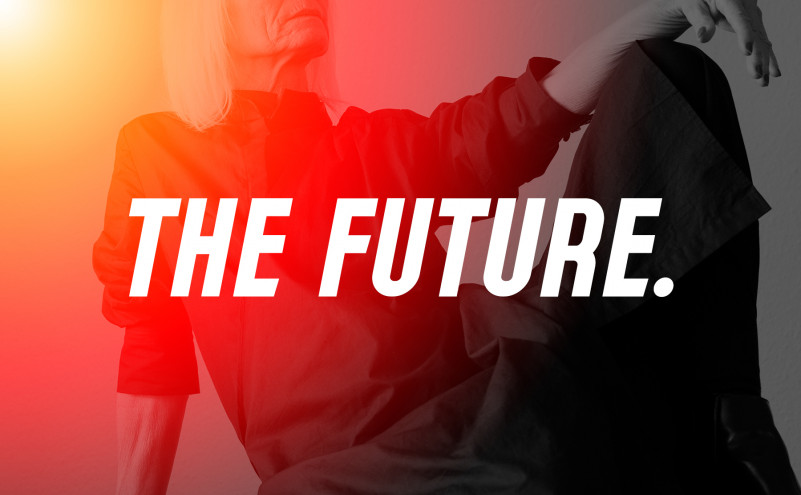
Gala402 Font
Gala402 Sans Serif Font
This is a modern and futuristic sans serif font manufactured by freeject.net Design. This font has a firm shape which makes it look luxurious and elegant. There are alphabet, numeric, and symbol provided. It provides what is usually needed completely.
Gala402 Sans Serif Font provides uppercase only. It has a long and bold character. Those are suitable for display font needs. It’s well-matched to use this font for titles on posters, flyers, logotypes, text cover, and more. Any kind of design would be okay, as it looks flexible to be put on anything.
Using this font for your text would highlight them. It’s striking and may make the text itself visible from afar. It may catch people’s attention in some way. Therefore, using this font for product promotions, events, any kind that may need to be the center of attention is best.